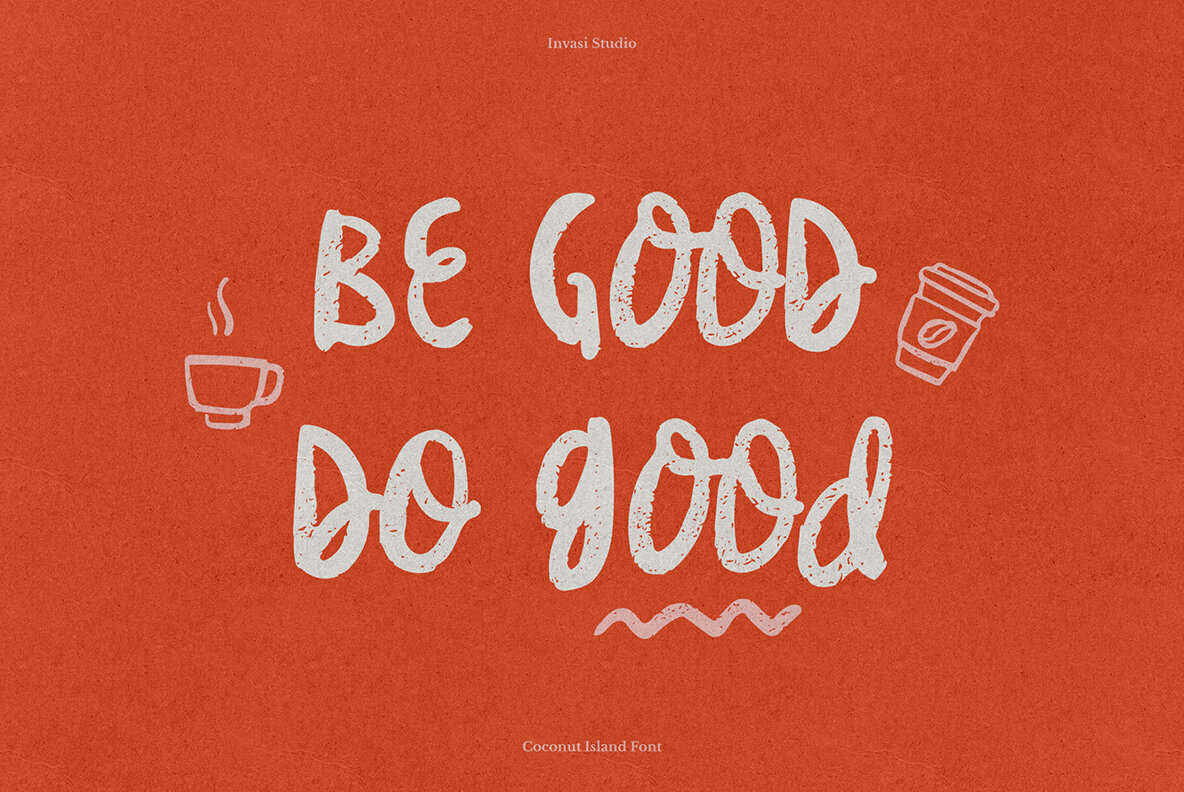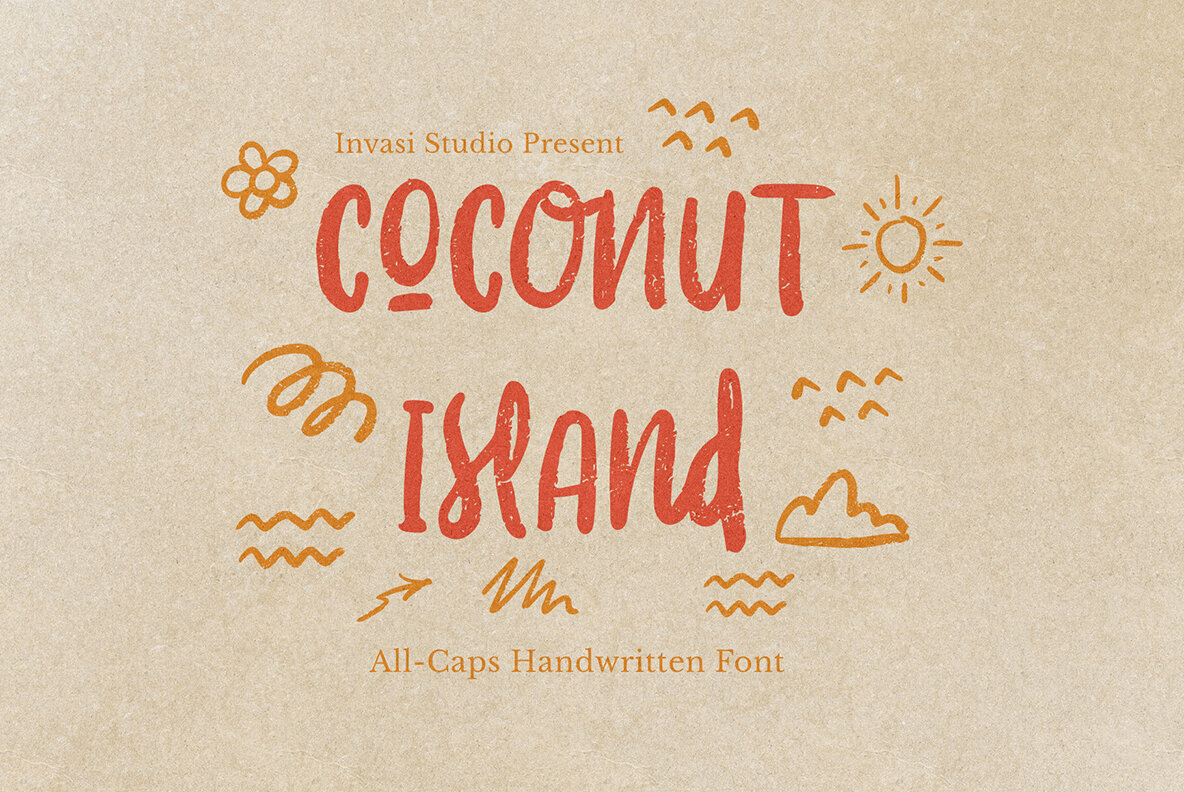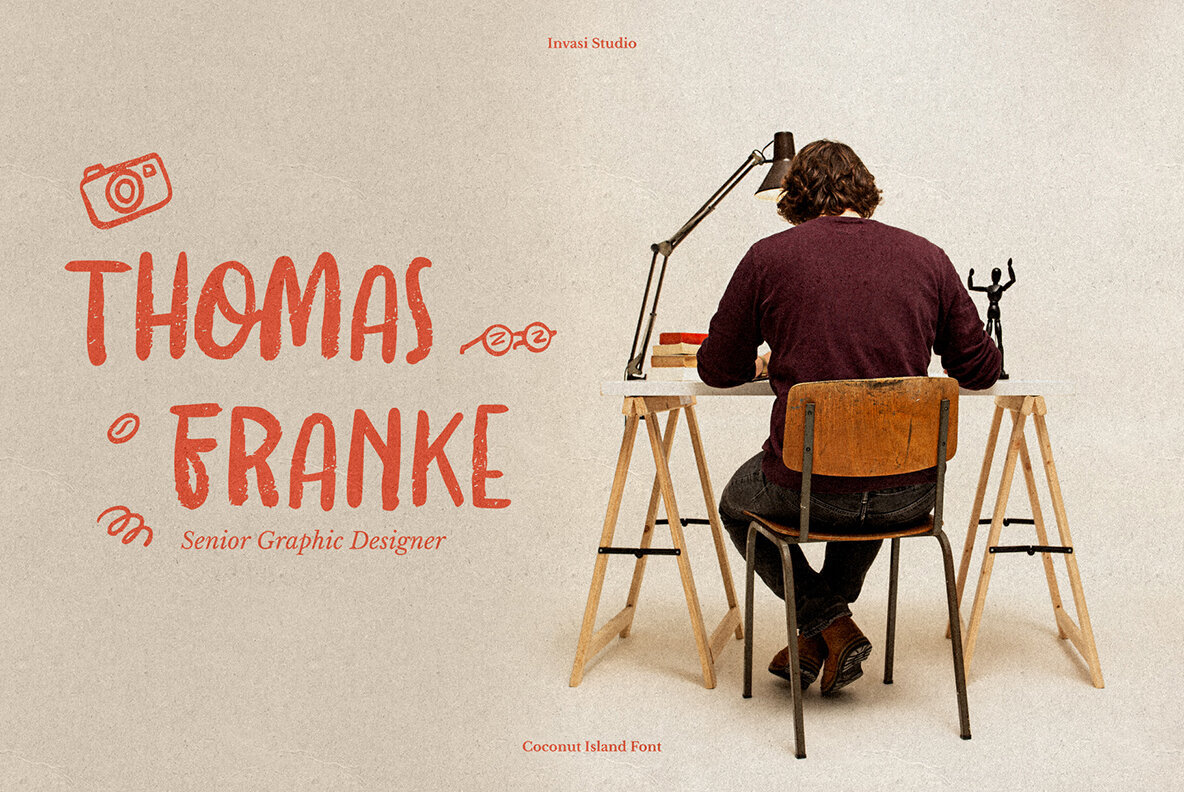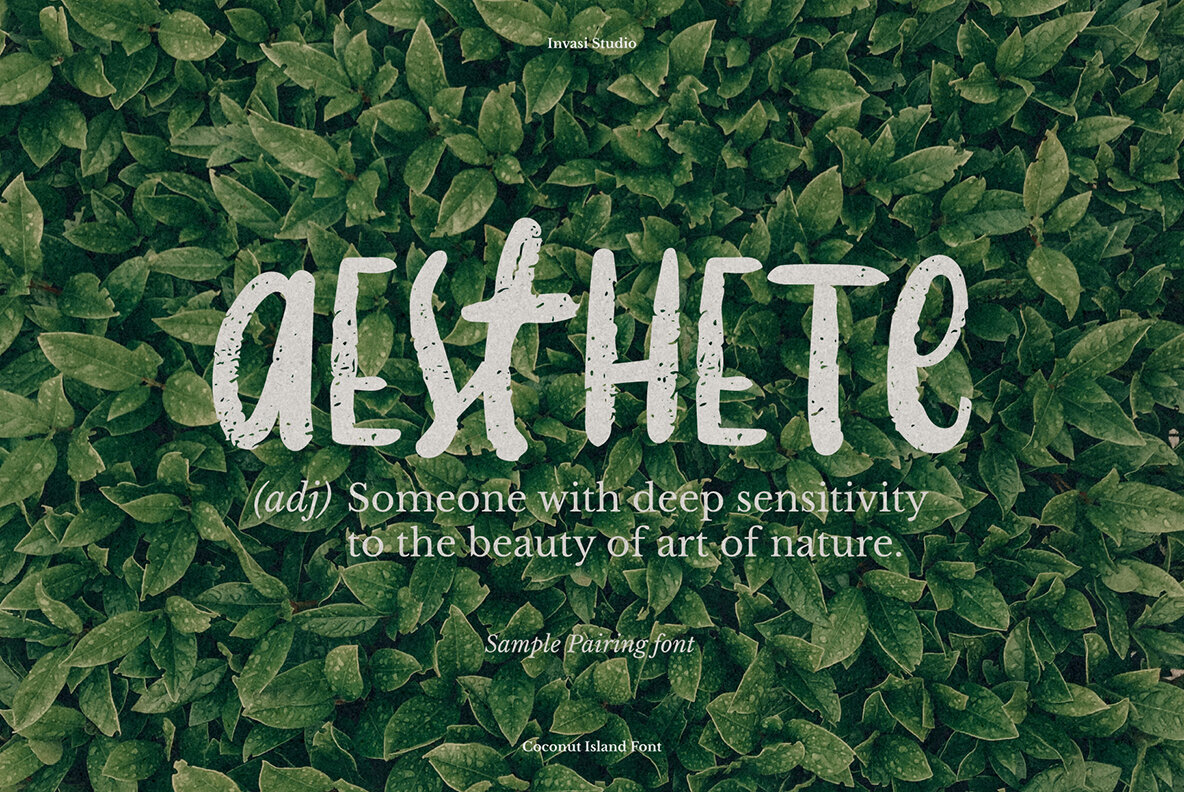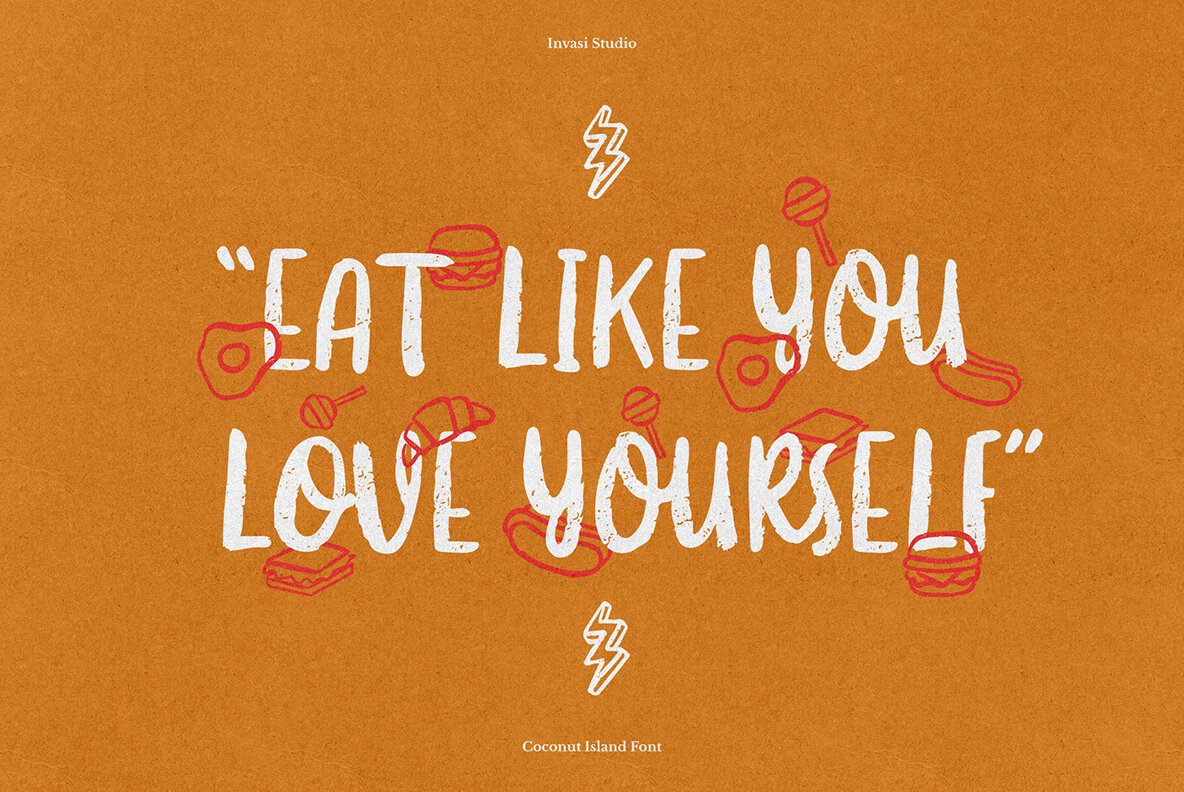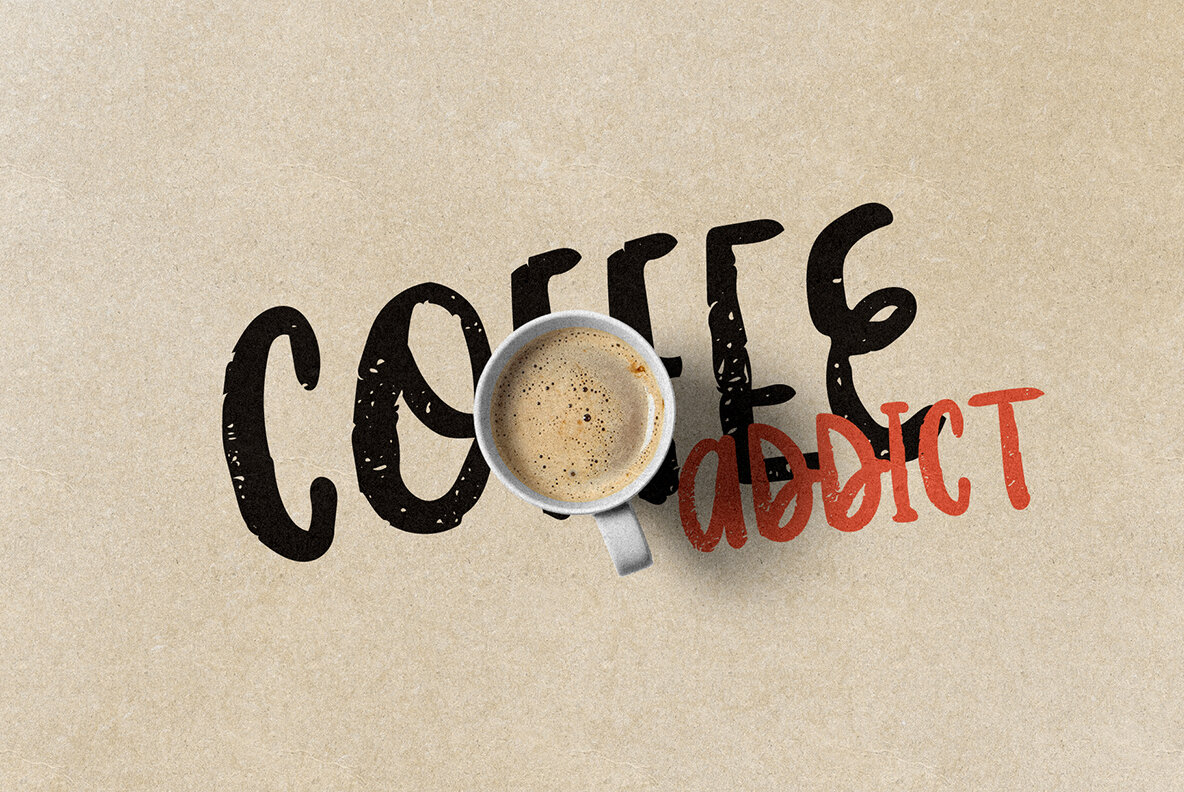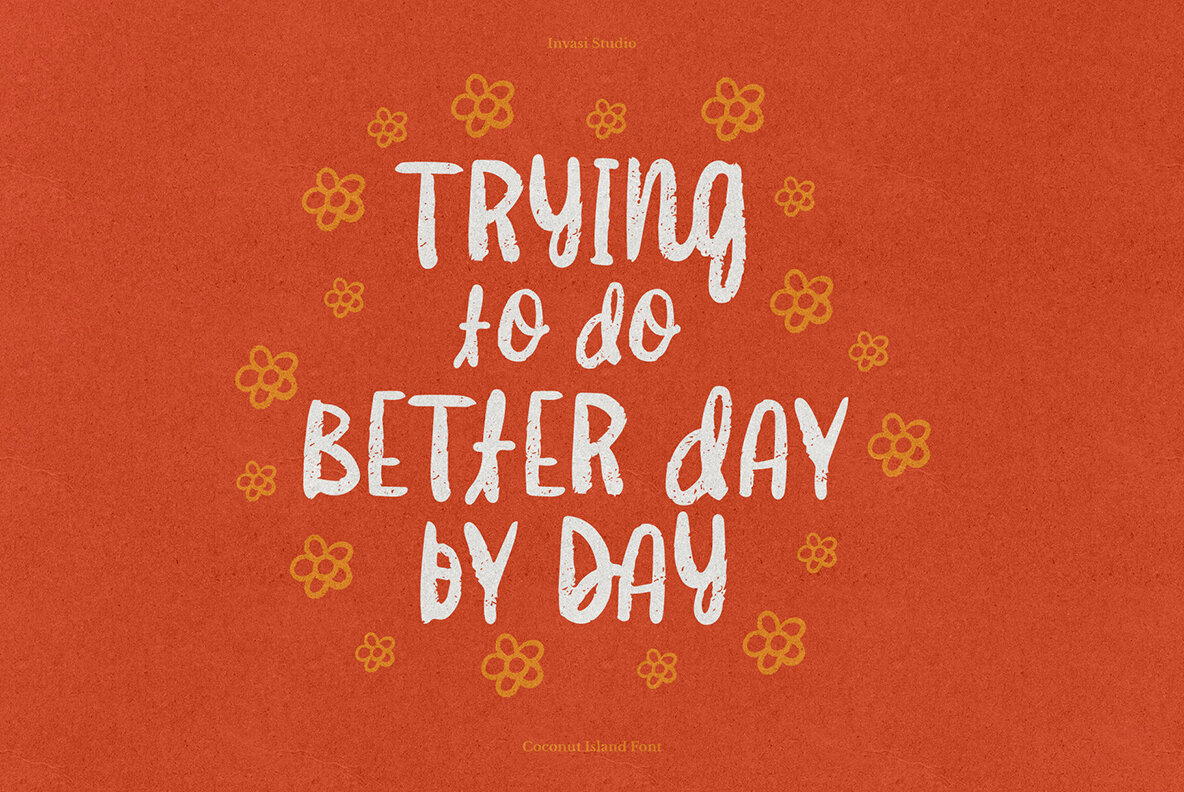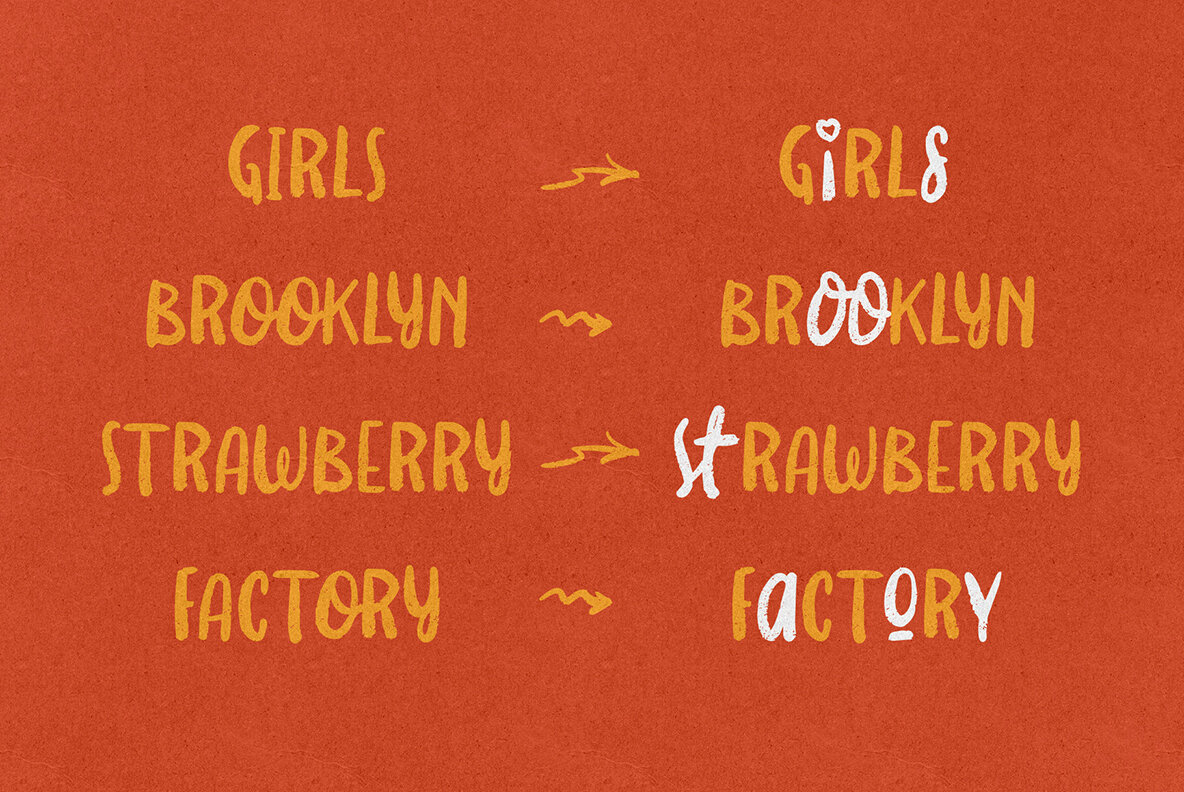
Coconut Island Font
Coconut Island
Coconut Island offers a distinctive all-caps display font that brings a brush-inspired style to your headlines and display designs. Its commanding presence makes it the perfect choice for projects seeking to stand out with a bold accent, presenting an opportunity to infuse creativity and playfulness into your work.Coconut Island: Bold Brush-Style Font